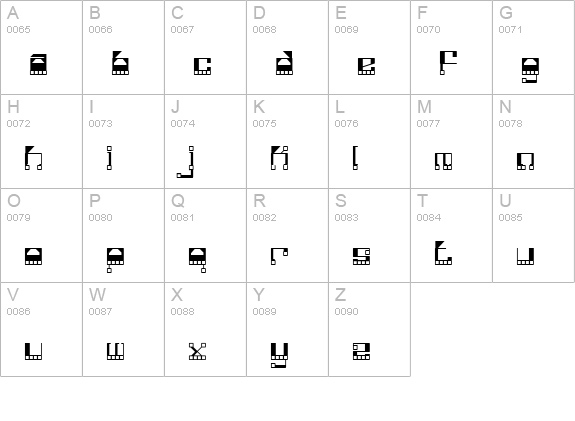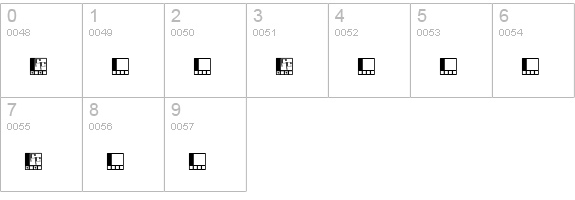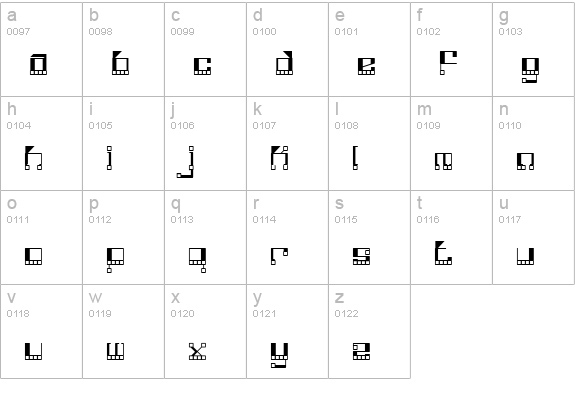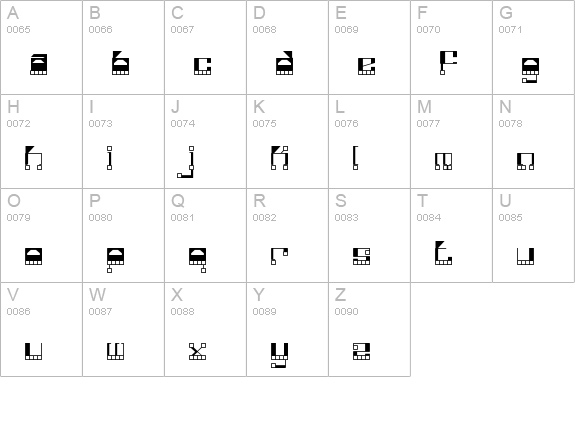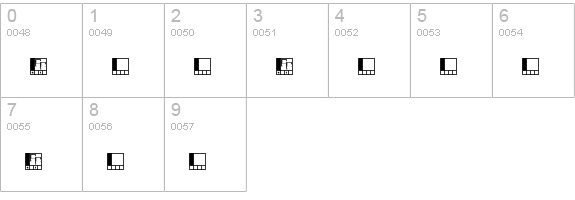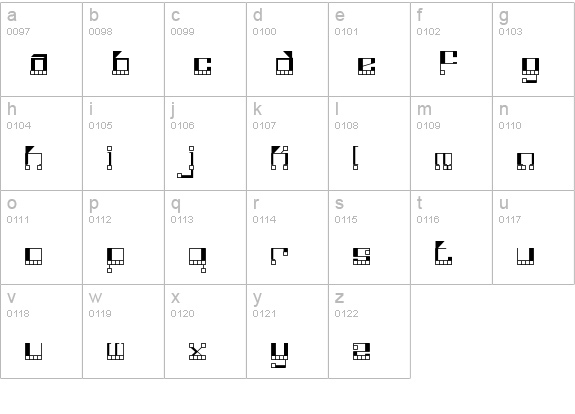
Funkotronic Font Details
Funkotronic font is a vibrant and funky typeface that exudes a playful and modern vibe. Its unique blend of geometric shapes and bold lines make it perfect for eye-catching designs and creative projects. With its futuristic aesthetic and energetic personality, Funkotronic font is sure to make a statement wherever it is used. Best of all, Funkotronic font is available for free download at FontsMarket.com. Whether you're designing a poster, creating a logo, or crafting a fun social media graphic, this font is a versatile and dynamic choice that will add a touch of whimsy to your projects. Don't miss out on the opportunity to add this exciting font to your collection today!